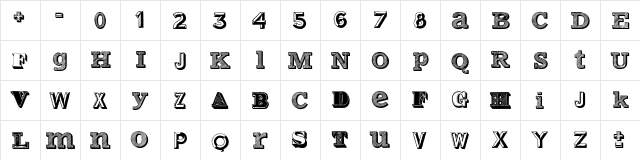
Varius Multiplex Personal Edition Regular
Design Context for Varius Multiplex Personal Edition Typeface
Varius Multiplex Personal Edition is a composed and adaptable typeface that performs quietly and consistently across a wide range of design contexts.